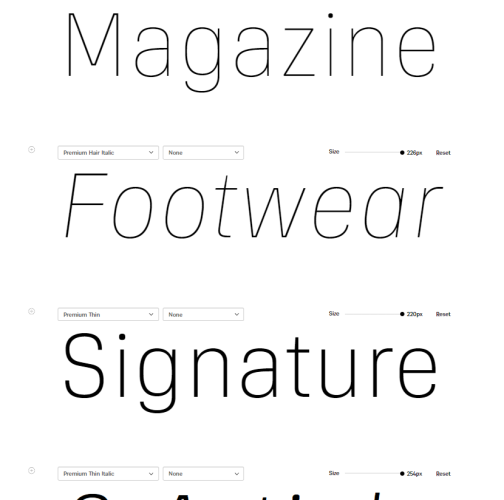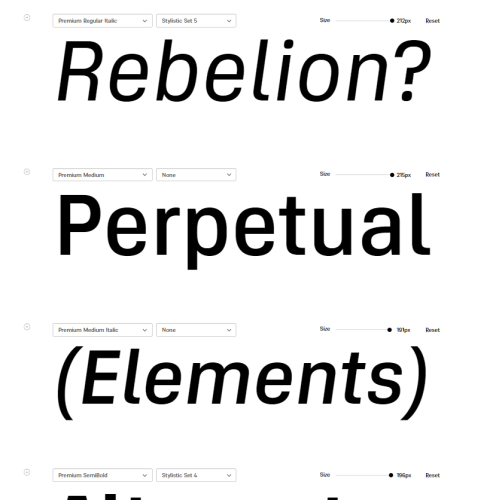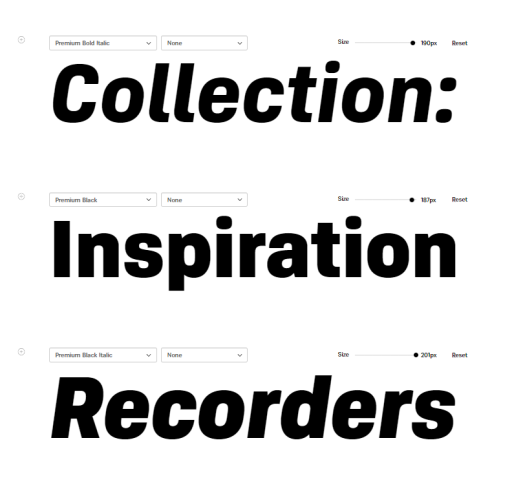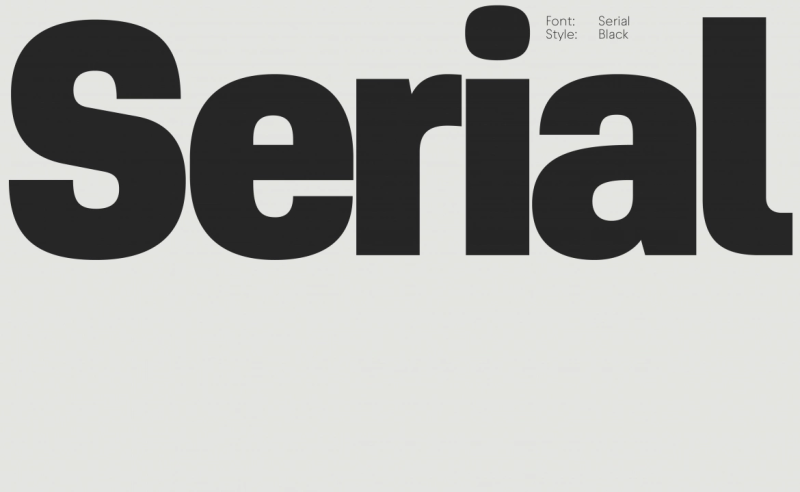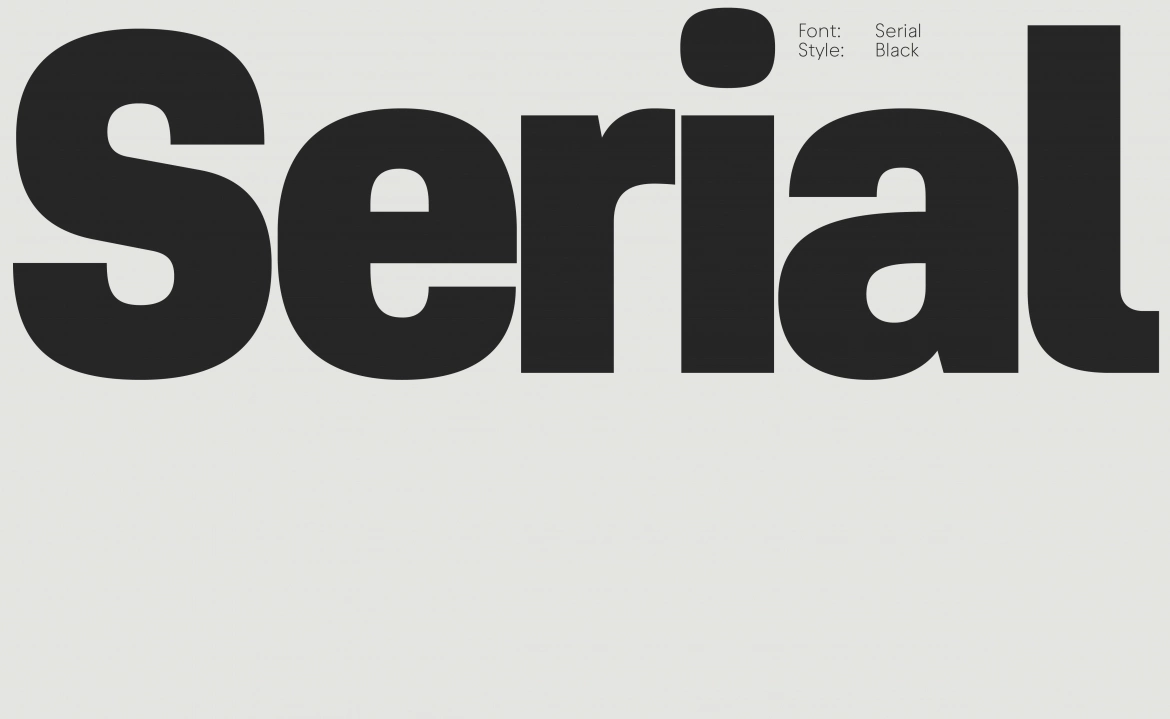
Serial Font Family
Serial is a practical, straightforward grotesque with narrow character width and rigid geometric drawing. You can spot influences from modern geometrical typefaces: char…
Serial is a practical, straightforward grotesque with narrow character width and rigid geometric drawing. You can spot influences from modern geometrical typefaces: characters with diagonal lines include ink traps; diacritics and punctuation use oval, cubic dots. These features might look utilitarian. Here, they are an aesthetic choice as well as a practical one. Headlines or logotypes can benefit from available alternative characters. However, Serial distinguishes between a severe typeface and a more versatile one with or without them. Serial is available in eight styles (Hair, Thin, Light, Regular, Medium, Semibold, Bold, Black). Stylistic sets have alternatives for a, g, l, r and R. Character sets include decorative elements and arrows.
Where Serial Font Family works best
Serial Font Family stays legible at small sizes, which makes it a strong choice for navigation, buttons and dashboards in web design and app interfaces.
Clean sans serifs like Serial Font Family are the default language of SaaS, fintech and product branding.
What is Serial Font Family good for?